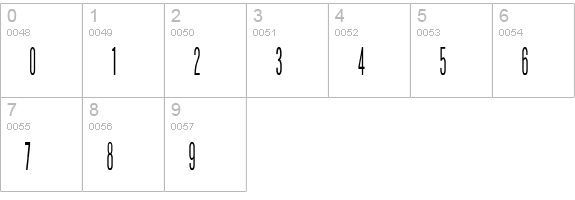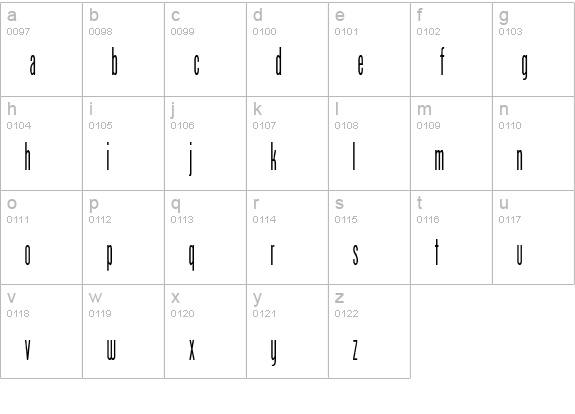
Venus-Normal is the standard, neutral variant in the Venus typeface family \xE2\x80\x94 well suited to general body text, paragraphs, and standard typographic work.
Venus-Normal is a stunning font that effortlessly combines elegance and readability. With its graceful curves and balanced letterforms, this font exudes a sense of sophistication and style. Whether you're designing a logo, creating a wedding invitation, or working on a branding project, Venus-Normal is the perfect choice to add a touch of class to your designs. This font is not only visually appealing but also incredibly versatile. It works equally well for both headlines and body text, making it ideal for a wide range of design projects. Its clean and modern design ensures that your message is conveyed with clarity and professionalism. One of the best parts about Venus-Normal is that it is available for free! Yes, you read that right. This font can be freely downloaded from FontsMarket.com, one of the leading online platforms for quality fonts. So if you're looking to enhance your typography collection without breaking the bank, Venus-Normal is definitely worth considering. Download Venus-Normal today and experience the beauty and versatility of this exceptional font. Let its timeless appeal elevate your designs to new heights. With Venus-Normal, you have the power to create stunning visuals that leave a lasting impression. Don't miss out on this incredible opportunity to enhance your creative work. Get your hands on Venus-Normal now and let your imagination run wild.